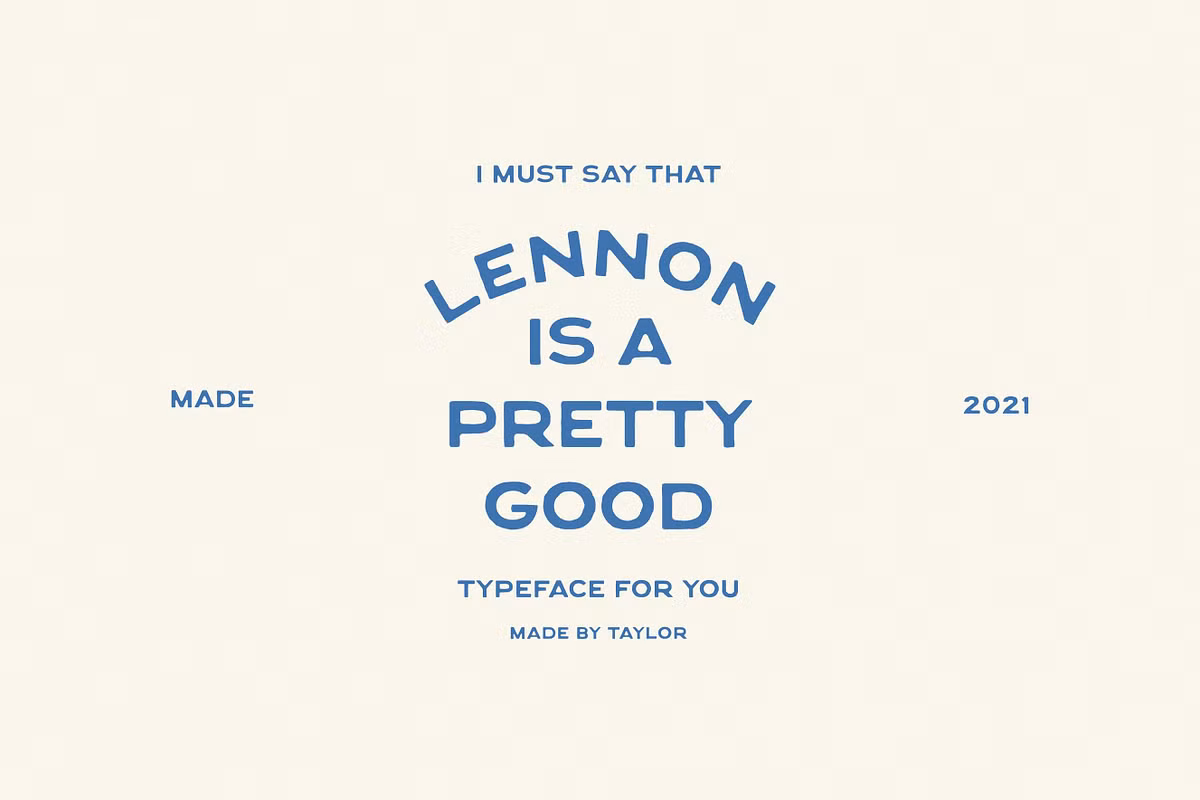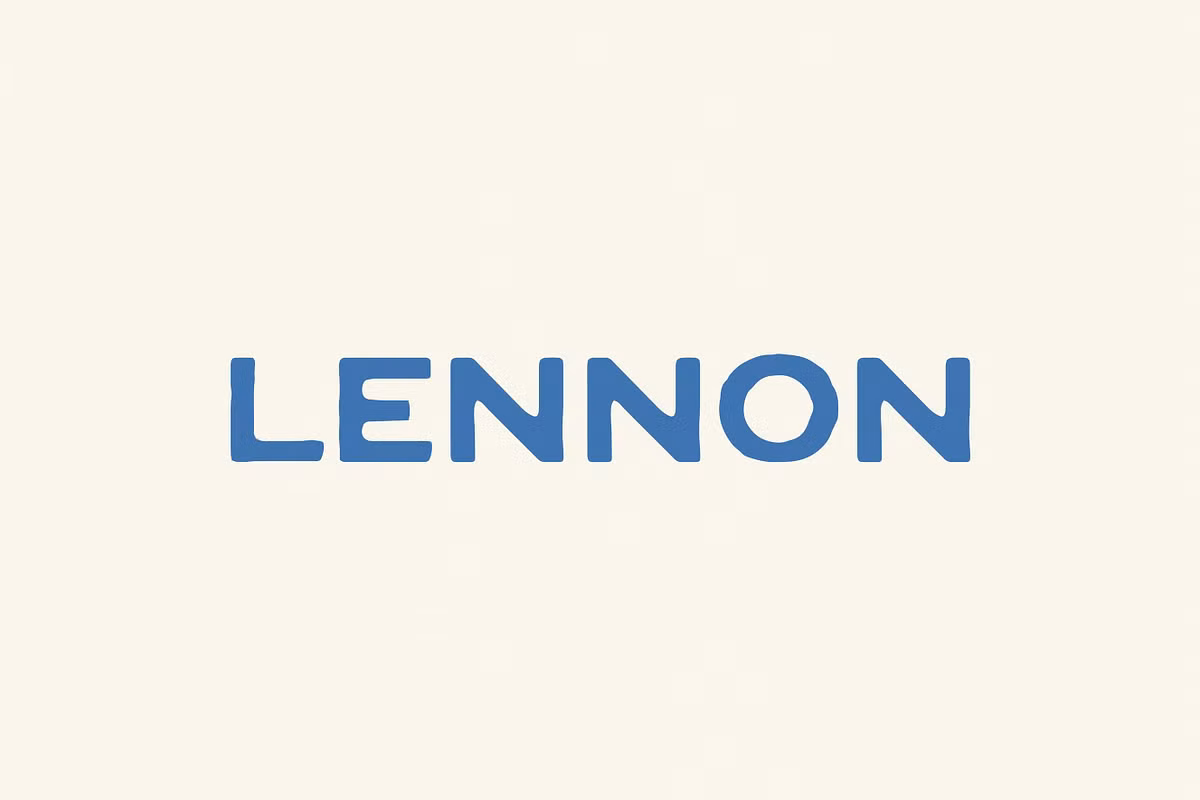
Lennon: Vintage-Inspired Display Font with Rounded Edges
Lennon is a contemporary take on the lettering styles found in vintage packaging. This unique display font showcases rounded edges, charming imperfections, and a wide letter format that evokes nostalgia while maintaining modern usability. Designed with uppercase letters, numbers 0-9, and essential punctuation, Lennon provides a versatile typography solution for various creative projects.
The Lennon font has a really cool style that mixes old and new looks. Its soft edges make it feel friendly and easy to like, which is great for projects that need a personal touch. The little mistakes in the letters give it a unique feel, like it was drawn by hand or taken from old packaging designs. This font is perfect for adding some warmth and personality to your work. The way it looks is also kind of nostalgic, but still fresh and modern at the same time. Overall, the Lennon font is a great choice when you want to add some character to your design.
The Lennon font is really good at making each character stand out because it uses a wide letter format. This makes it perfect for things like headlines, posters, and branding materials, as it grabs people’s attention and gives off a sense of being real. You can tell it was inspired by old designs, but it still looks modern and fitting for the designs we see today. It’s a great choice when you want to make a statement and have your message seen.
Character Sets
The Lennon font is really useful because it has a lot of different characters. You get uppercase letters, numbers from 0 to 9, and basic punctuation marks. This means you can use it for lots of different things. The uppercase letters are great for making big statements, like headings and titles. And with numbers, you can use it for things like pricing labels or putting dates on events. It’s pretty versatile.
The Lennon font is special because each letter is carefully made to keep its soft edges and little mistakes that make it look so nice. This means that no matter how you use the letters, they still look really good. The basic punctuation marks, like commas and periods, are also made to fit with the font, so when you use them in sentences, they don’t mess up the way the font looks. This makes it easy to use the Lennon font in writing without it looking out of place.
Lennon is a versatile font that can be employed across various design contexts. Here are some ideal use cases:
- Branding: The friendly and vintage-inspired aesthetic of Lennon makes it an excellent choice for branding projects, particularly for artisanal products, cafes, or boutiques that wish to convey a sense of nostalgia.
- Posters and Flyers: The bold letterforms and wide format of Lennon make it perfect for eye-catching posters and flyers. Whether advertising an event or promoting a product, Lennon ensures your message is delivered with style.
- Packaging Design: Given its roots in vintage packaging, Lennon is naturally suited for packaging design, lending a touch of authenticity to food, beverage, or craft product labels.
- Social Media Graphics: The unique aesthetic of Lennon can enhance social media graphics, making posts more engaging and visually appealing to capture the audience’s attention.
When working with the Lennon font, thoughtful pairing with complementary typefaces can elevate your design. Here are some pairing suggestions:
- Sans-serif Fonts: Pair Lennon with a clean sans-serif font like Montserrat or Open Sans. The contrast between the rounded, vintage feel of Lennon and the modern lines of a sans-serif can create a balanced and harmonious design.
- Serif Fonts: For a classic look, consider pairing Lennon with a traditional serif font, such as Playfair Display or Merriweather. This combination creates a visually appealing contrast between rounded and sharp edges, adding depth to your design.
- Handwritten Fonts: To enhance the handcrafted feel, consider pairing Lennon with a handwritten font like Pacifico or Dancing Script. This combination can evoke a warm, inviting atmosphere.
By doing this, you can use the Lennon font to make beautiful and effective visual communications that really speak to the people you’re trying to reach. The Lennon font has its own special qualities and is best used in certain situations. If you understand these, you can use it to make your projects stand out with its unique and vintage style. This is true whether you’re a designer, someone who works in marketing, or an entrepreneur – the Lennon font can add a lot of character to your work.